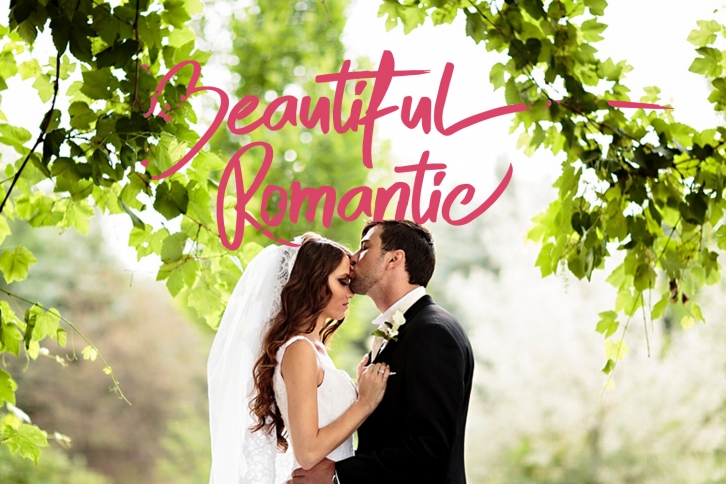
Skytree Script Brush is a gorgeous font that was realeased on January 5, 2018. The font can be used in many style contexts and design environments. Perfect for invitations, magazines, websites, logos, and more! It was designed by madeDeduk and the file size is 4.27 MB. Thanks for checking out this font!